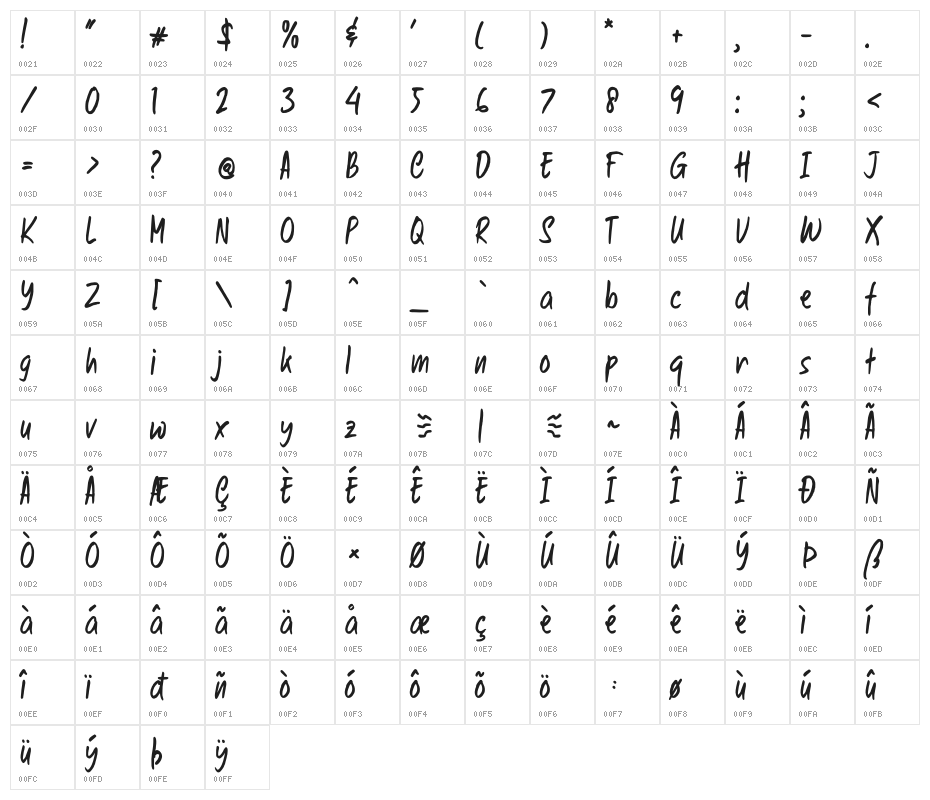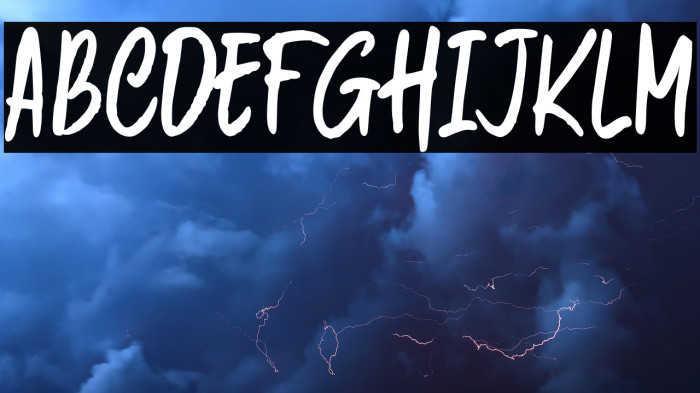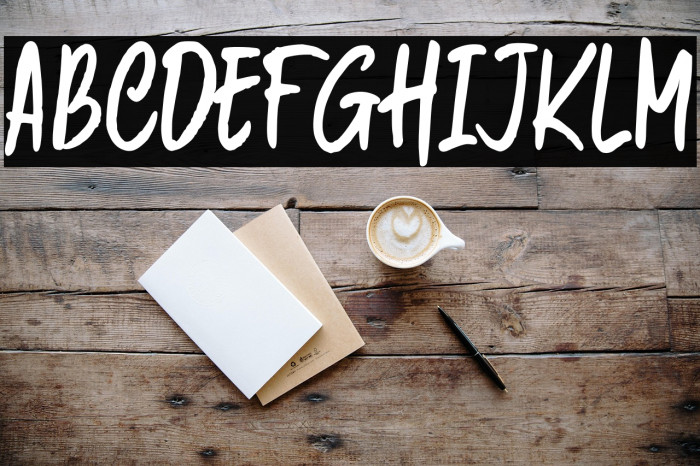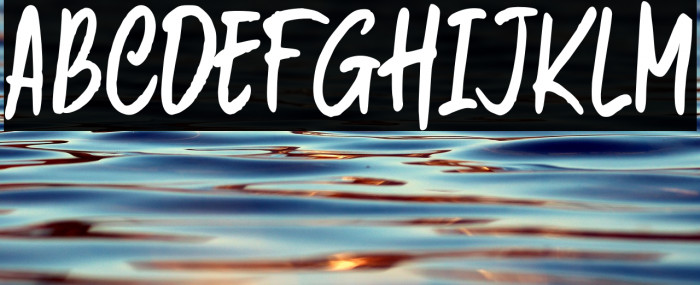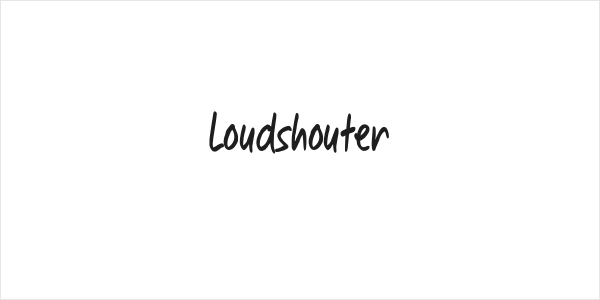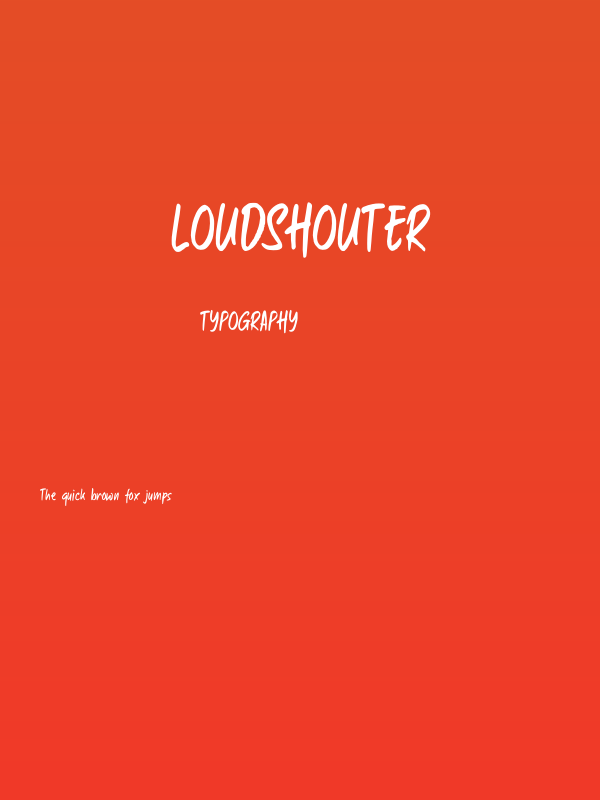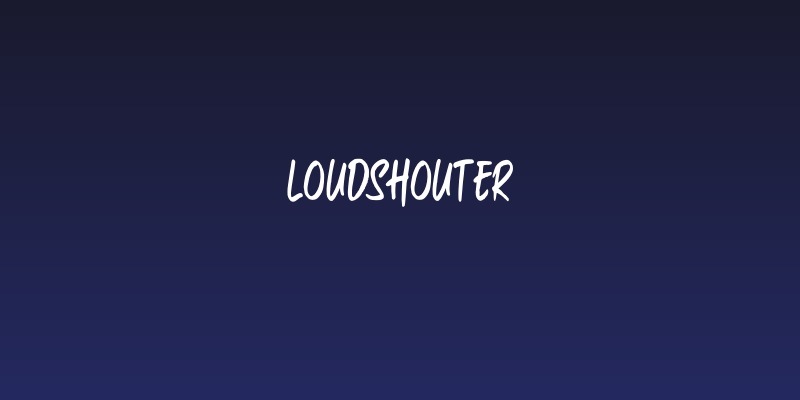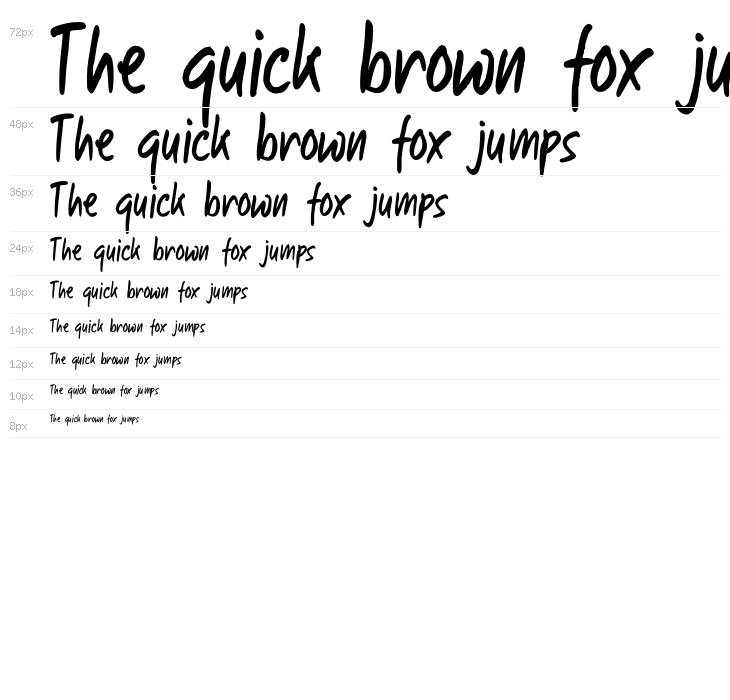
Loudshouter Font
Loudshouter Description
This font exudes a bold and energetic handwritten style, characterized by its dynamic and slightly irregular strokes. The letters have a casual and informal appearance, with a playful and expressive quality. The uppercase and lowercase characters maintain a consistent flow, while the numbers and special characters complement the overall aesthetic. The strokes are thick and confident, giving the font a strong presence. This style is reminiscent of spontaneous handwriting, making it ideal for projects that require a personal touch or a sense of immediacy.
| Proposed Projects | Ideal for posters, social media graphics, branding projects, and any design needing a personal, informal touch. |